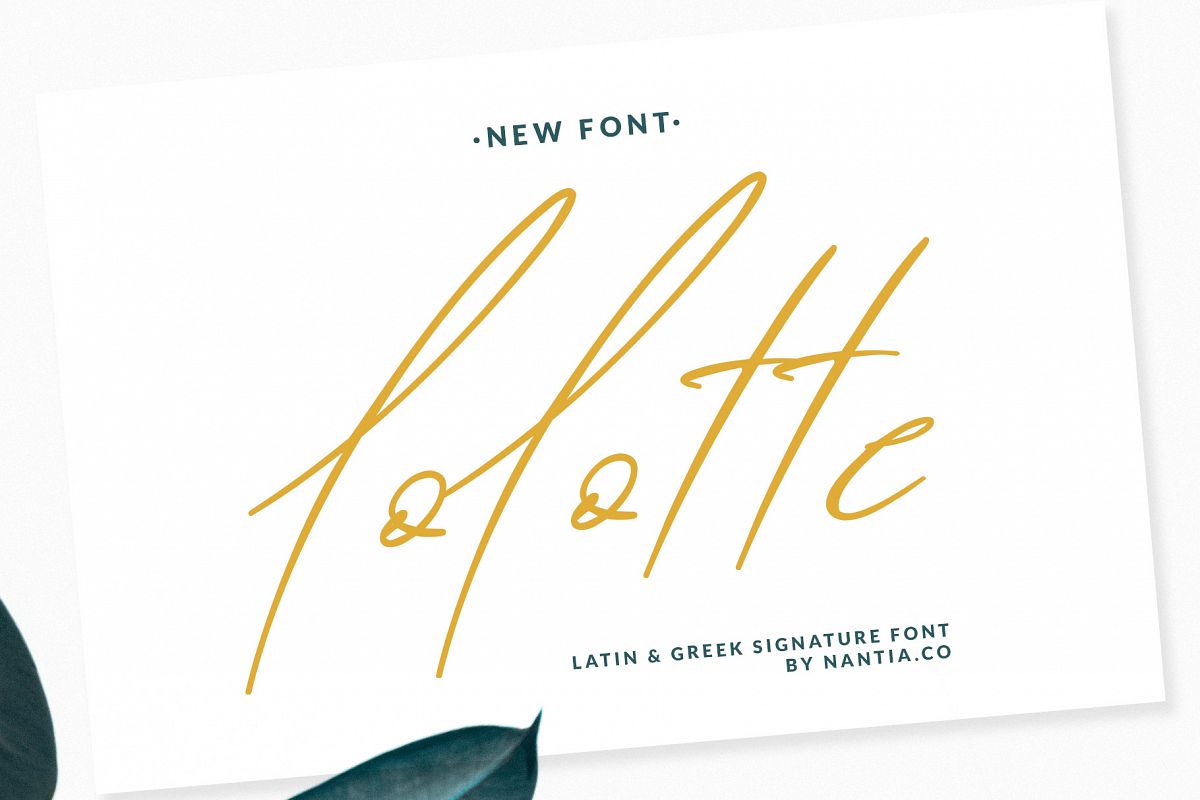
Lolotte Multilingual Signature Font
The Lolotte Multilingual Signature Font is a Greek Font.
A signature decorative font with which you can achieve a handwritten-type lettering feeling. Lolotte Multilingual Signature Font is a multilingual lettering font with Greek (of course), extended Latin characters and diacritics. This signature style is perfect for your modern graphic design projects. This font has a really nice flow so you can use it in a large body of text if you want to give it a handwritten vibe. It can also be used on social media content, for branding or packaging applications. Also, Lolotte Multilingual Signature Font is the ideal typeface for branding and packaging. Additionally, you can use Lolotte Multilingual Signature Font on wedding invitation designs. Especially if you are looking for a font for Instagram quote posts or any other social media content, this typeface is for you!
• Latin Character Set
• Greek Character Set
• Punctuation marks